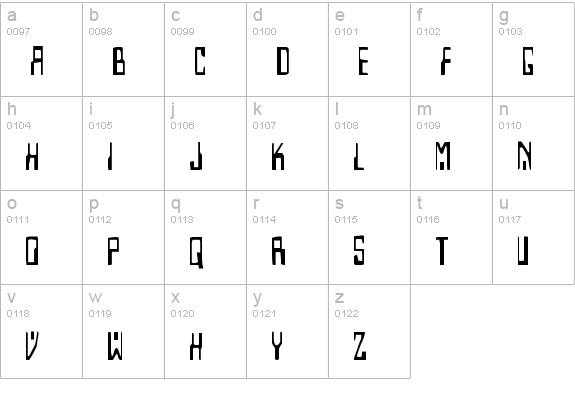
Homemade Robot Condensed is a distinctive, condensed-width variant in the Homemade typeface family \xE2\x80\x94 well suited to design and typography projects.
Homemade Robot Condensed font is a charming and quirky display typeface that exudes a sense of playfulness and creativity. With its hand-drawn appearance and condensed style, this font is perfect for adding a unique touch to your designs. Whether you're creating posters, logos, or social media graphics, Homemade Robot Condensed will make your text stand out. The best part? Homemade Robot Condensed font is completely free to download at FontsMarket.com. So go ahead and unleash your creativity with this delightful typeface that is sure to bring a fun and whimsical vibe to your projects.